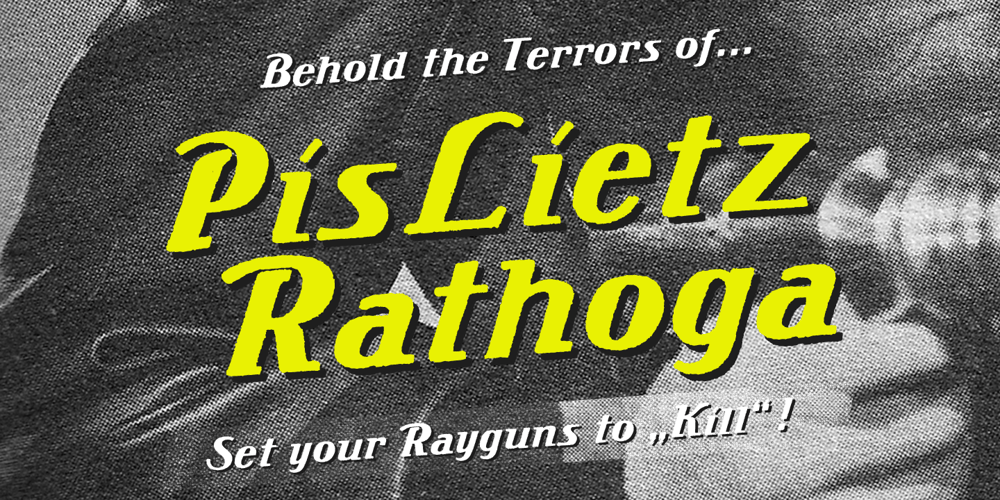
PiS LIETZ Rathoga Font Family was designed by Hannes Siengalewicz and published by PiS. PiS LIETZ Rathoga contains 1 styles and family package options. Welcome to the Jet Age! LIETZ Rathoga jumps right out of the covers of vintage Space-Hero comics and onto your flickering cathode ray tube monitor. Fight the evil Zombies of the Stratosphere with sharp serifs! Race the Rocketmen with narrow stroke widths and fast italics! Loaded with Ligatures for more firepower! Team up with Rathoga’s brothers and sisters from the LIETZ font family and you will triumph over the hordes of evil! Power on!